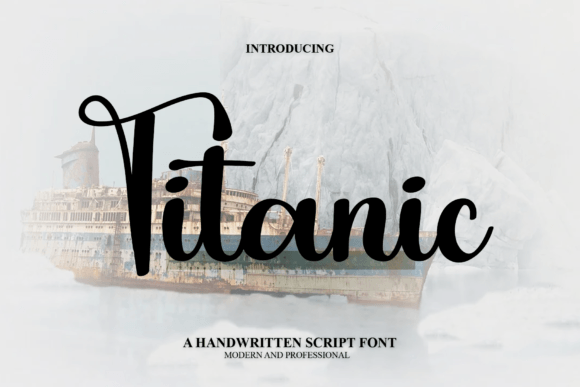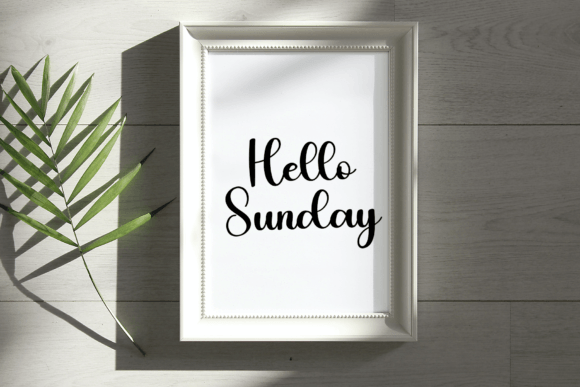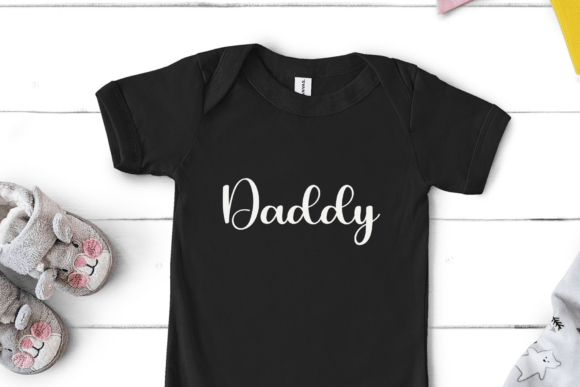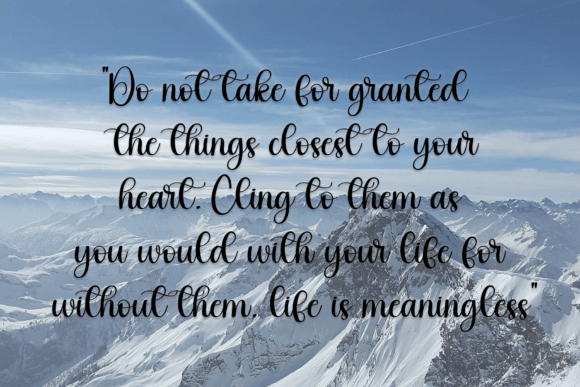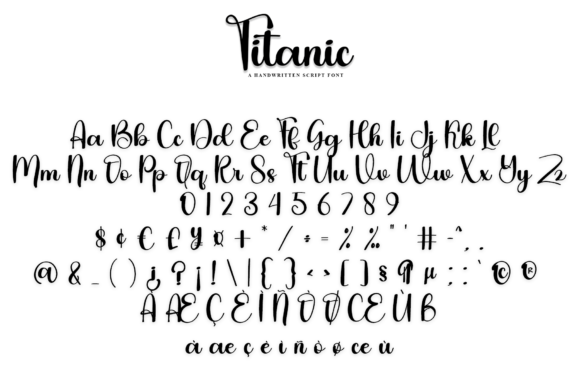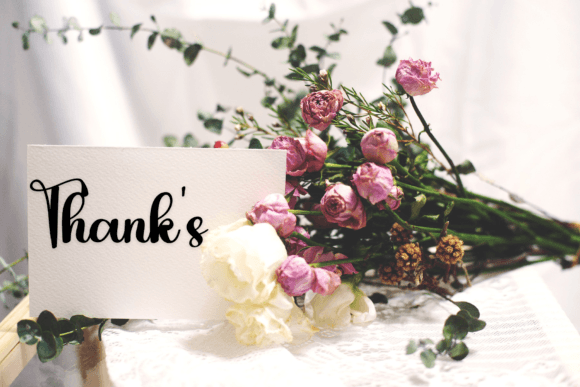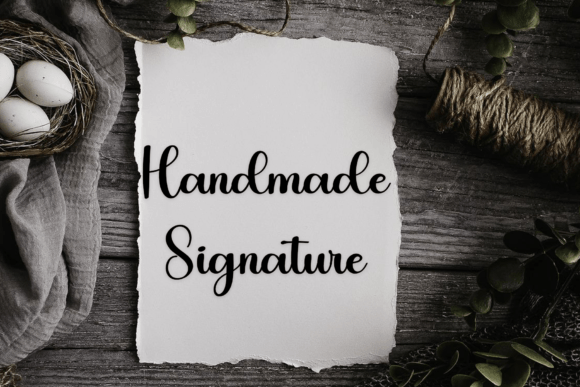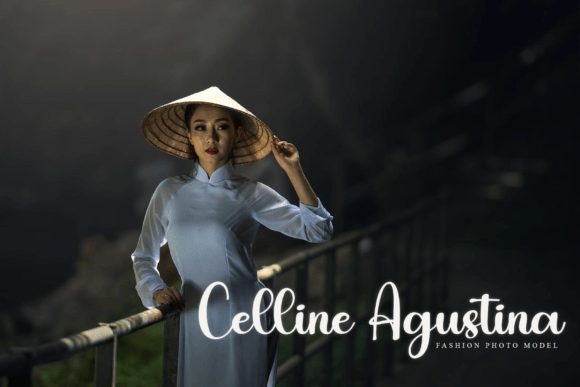
Titanic Font
About Titanic Font
Titanic is a unique round-lettered handwritten font, meticulously crafted to elevate your favorite projects. This font offers a distinct style that can be effectively used for writing titles, invitations, letters, and a variety of other creative products.
The round-lettered design of Titanic imparts a friendly and approachable aesthetic to your text. The carefully crafted letterforms contribute to the uniqueness of the font, making it a standout choice for projects that require a touch of originality.
When used for titles, Titanic adds a playful yet sophisticated flair. The rounded shapes give it a soft and inviting appearance, making it suitable for a wide range of creative applications, from posters to digital designs.
For invitations, Titanic brings a personalized and charming touch. The handwritten style enhances the warmth of your message, creating an inviting and memorable atmosphere for the recipients.
In crafting letters or other textual content, Titanic provides a distinctive look that captures attention. Its round-lettered form sets it apart, making your written communication more visually interesting and engaging.
The versatility of Titanic allows it to adapt to various types of projects, adding a unique and creative dimension to your designs. Whether you’re working on print materials, digital graphics, or other creative endeavors, Titanic is ready to enhance your projects with its carefully crafted round-lettered style.
In summary, Titanic is more than just a font; it’s a design asset that brings a unique and rounded handwritten style to your favorite projects. Whether you’re writing titles, invitations, letters, or other textual content, Titanic adds a touch of originality and charm, making your designs stand out with its distinctive and carefully crafted aesthetic.